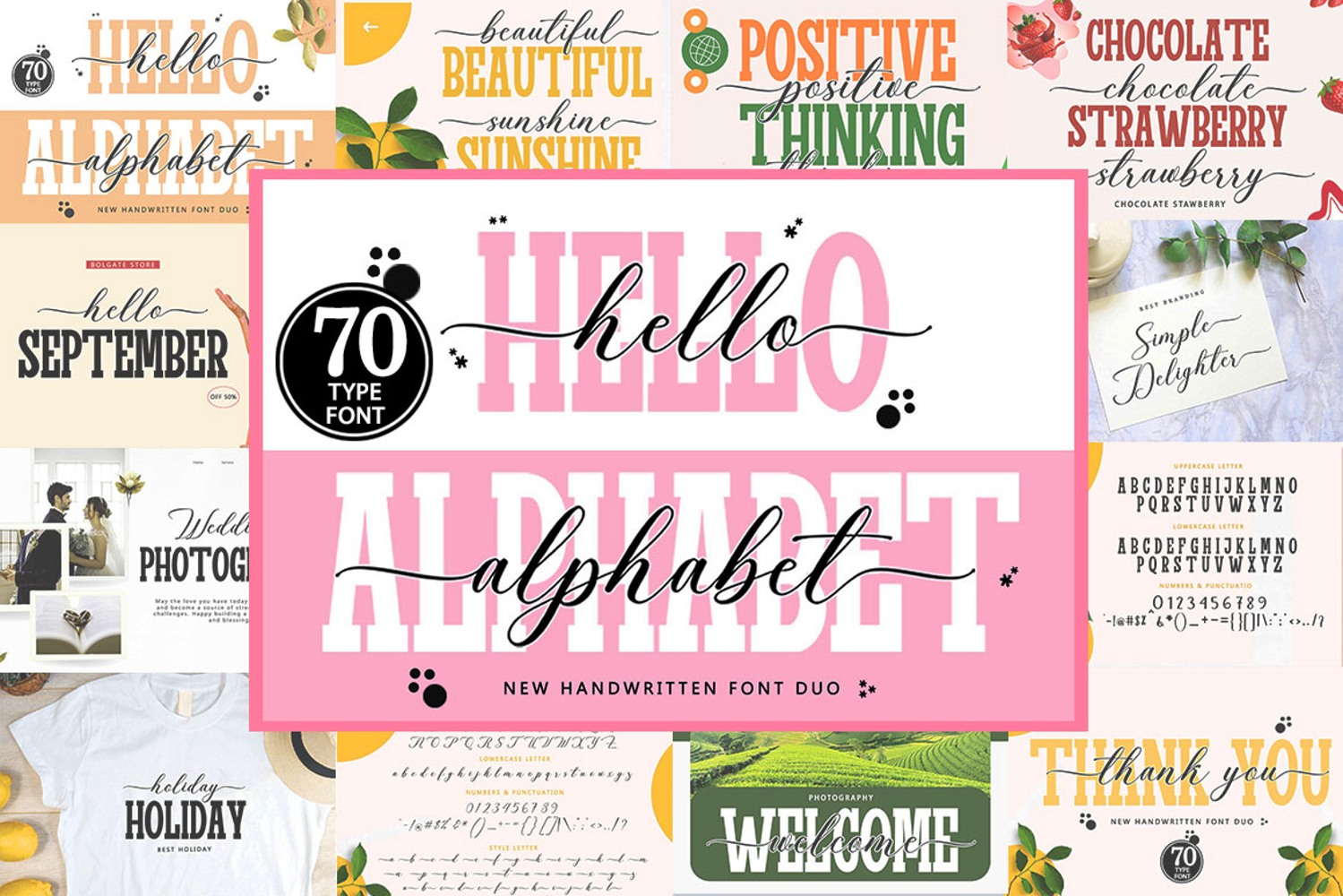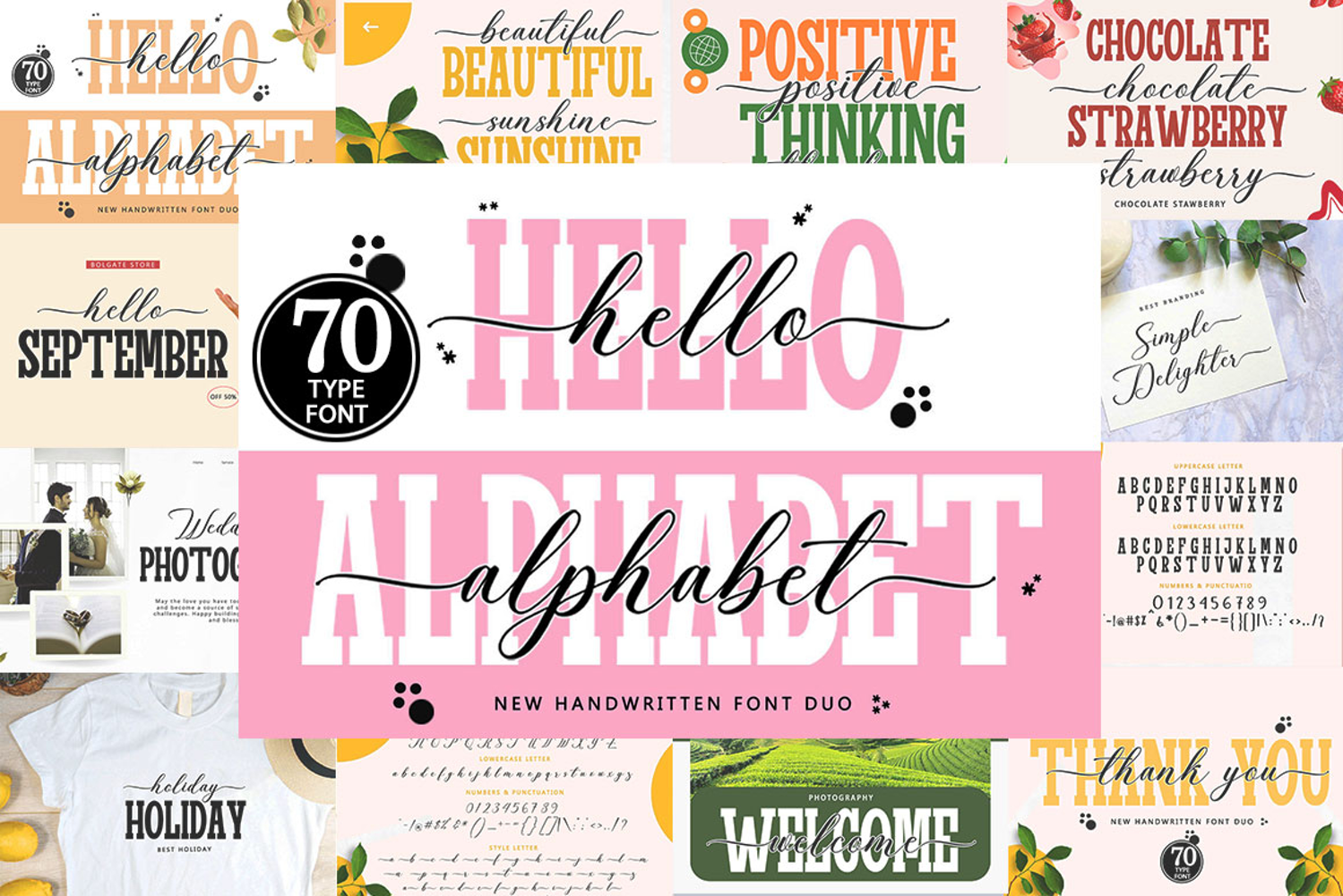
Hello Alphabet - Font Duo In 70 Type Font Family
Introducing Hello Alphabet Font Duo Family Typeface, a versatile collection of 70 beautifully designed typefaces with an elegant and modern touch.
The Hello Alphabet Font Duo stands out with its sleek, clean, feminine, sensual, and glamorous character. Its graceful letter connections, smooth curves, and stylish alternates make it both easy to read and visually stunning.
These fonts create a harmonious and visually appealing look, perfect for projects related to weddings, invitations, love themes, or feminine branding. The overall design is warm and accessible, with a modern yet timeless appeal.
• Regular, Slant/Italic, Bold, Bold Slant/Italic, Outline, Outline Slant/Italic, Hatching, Hatching Slant/Italic.
• Alternatives / Styles